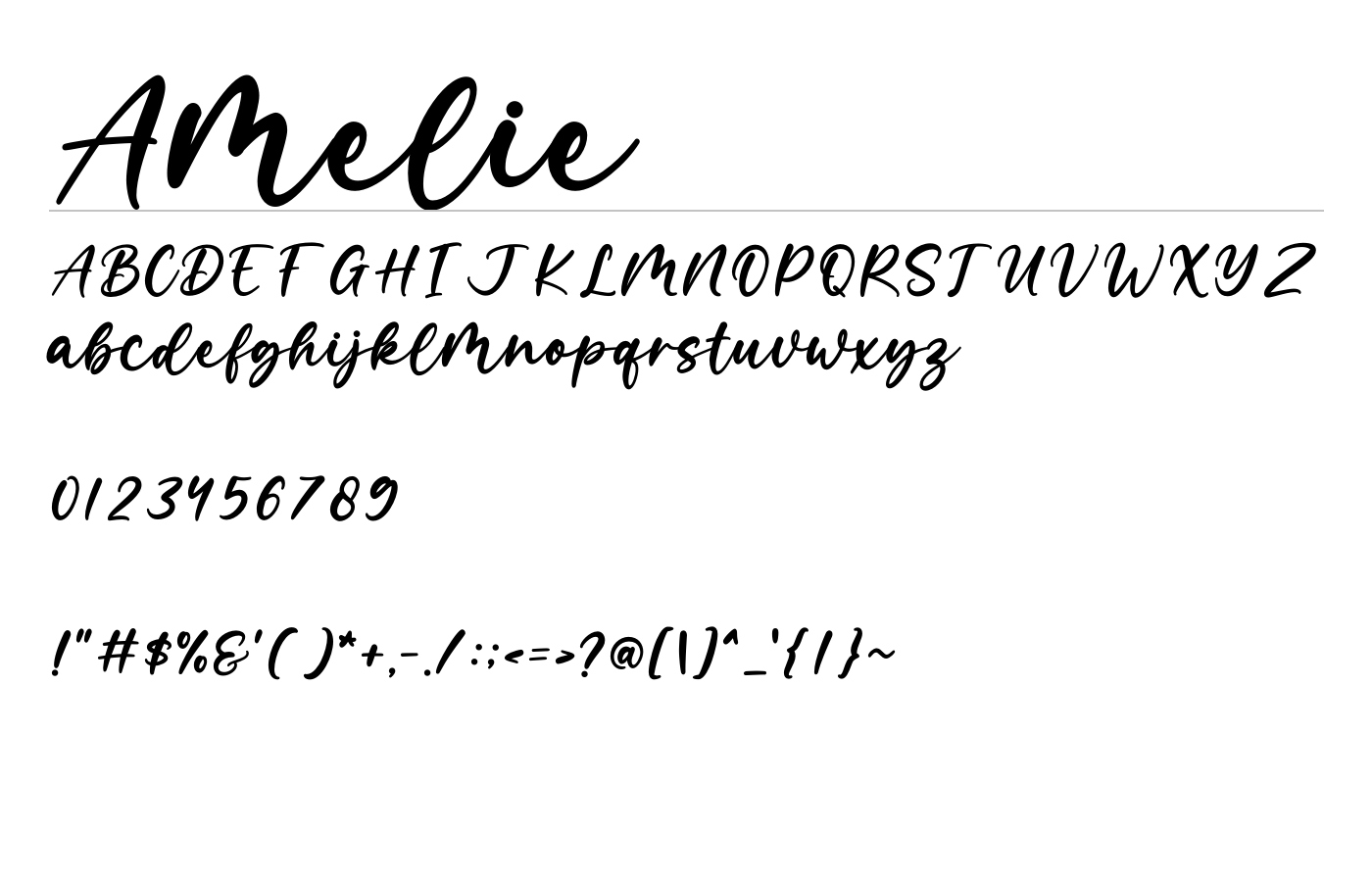
Amelie is a stylish script font with a smooth, flowing design that combines elegance with a friendly, approachable vibe. Its varying stroke weights and natural cursive shapes make it ideal for branding, invitations, and creative projects that want to convey warmth and sophistication. This font works beautifully in logos and headlines where a personal, handwritten touch is desired.
Amelie Font
About Amelie Font
| Font family | Amelie Font |